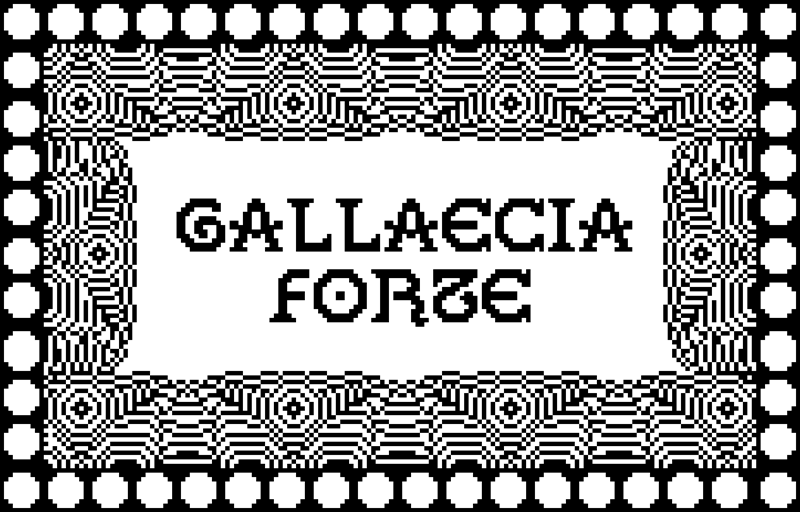
[][][] GALLAECIA FORTE [][][] Made by David Calvi�o Gallaecia Forte is a pixel adaptation of Gallaecia Castelo Font, originally designed by Carlos Nu�ez. It's an AllCaps font, 100% free, for personal and commercial use. Despite being not necessary, mentions are welcome. If you like the font and want to support the author you can do it - Buying in the online store www.pixelargh.bigcartel.com - Donating via Paypal to davidcalvinof@gmail.com Contact: [] davidcalvinof@gmail.com [] @Kalvinger _____________________ Por David Calvi�o Gallaecia Forte � unha adaptaci�n a estilo pixel da tipograf�a Gallaecia Castelo dese�ada por Carlos Nu�ez. � unha tipograf�a AllCaps con licencia gratuita para usos tanto personais como comerciais. A�nda que non � obrigatoria, a menci�n � de agradecer. Se che gusta e queres apoiar � autor podes facelo dos seguintes xeitos: - Mercando na tenda online www.pixelargh.bigcartel.com More... |